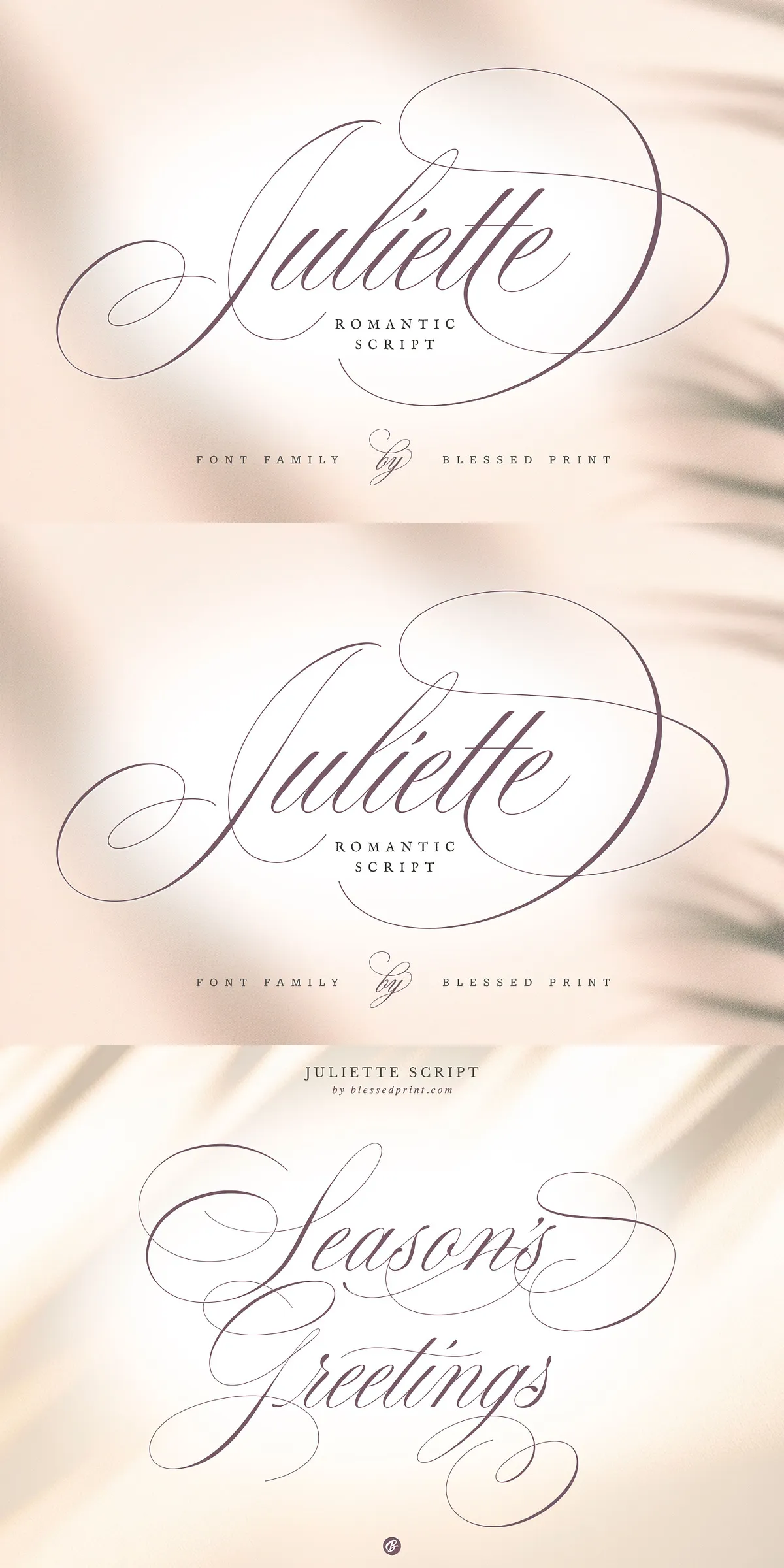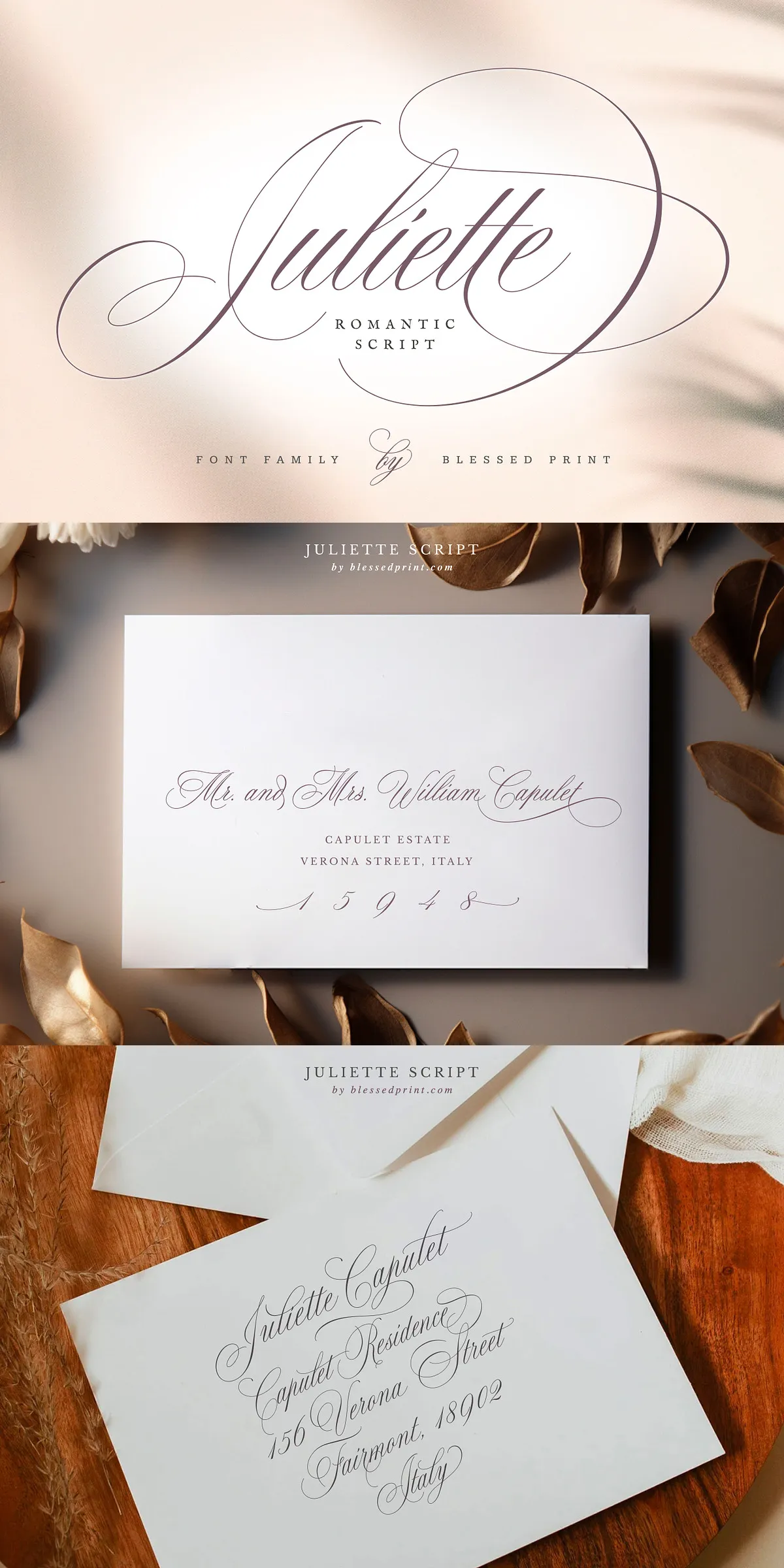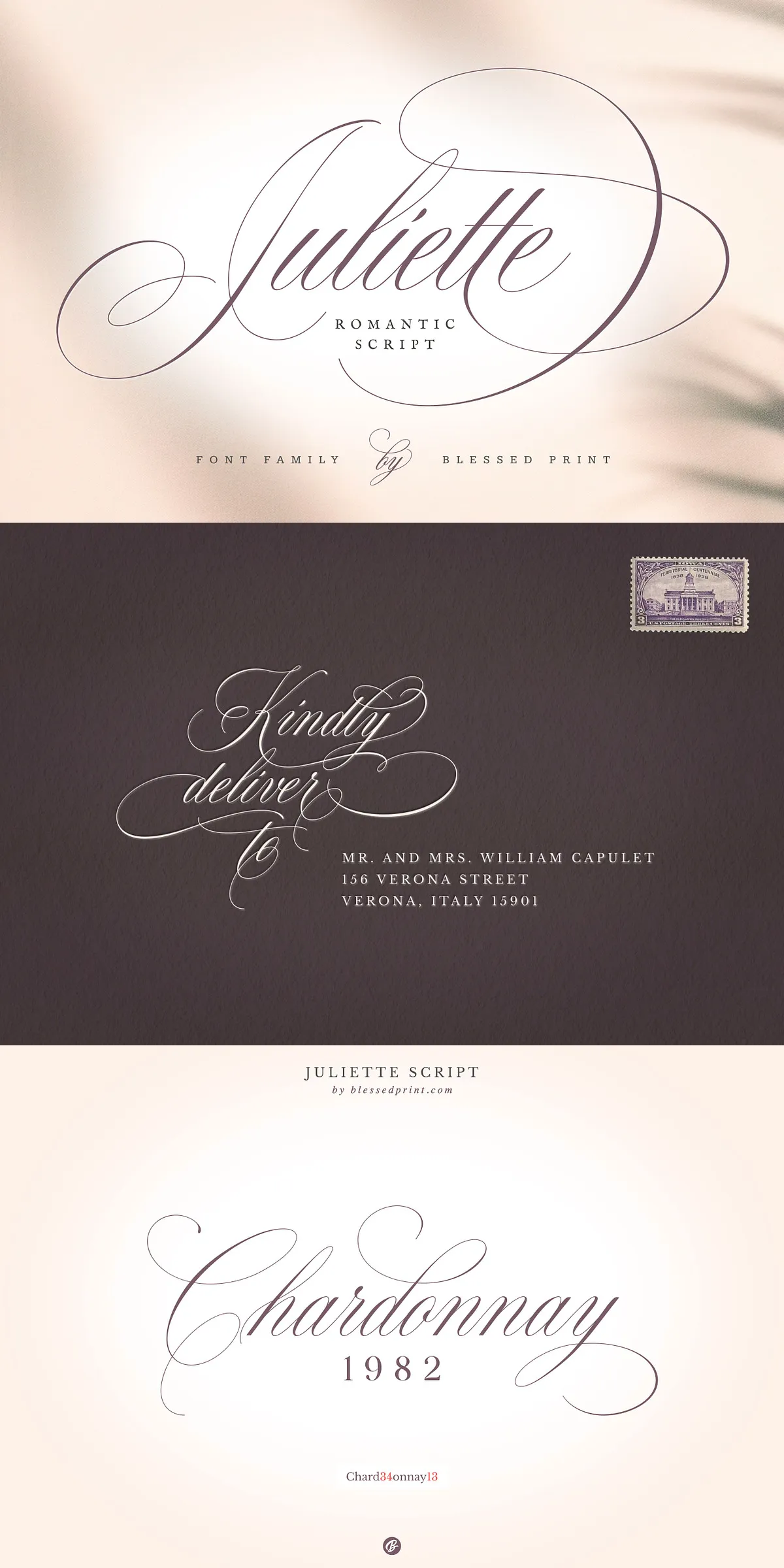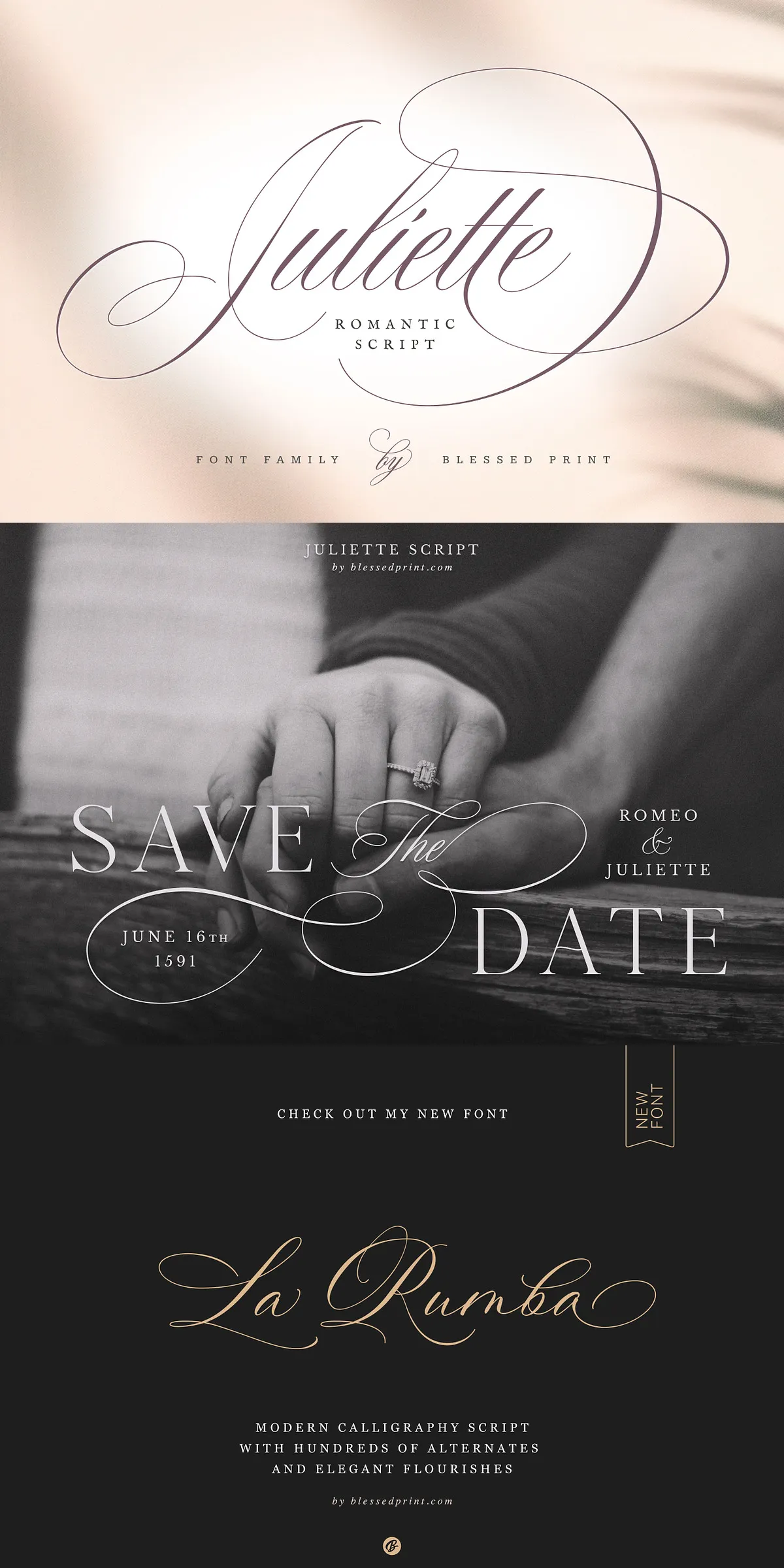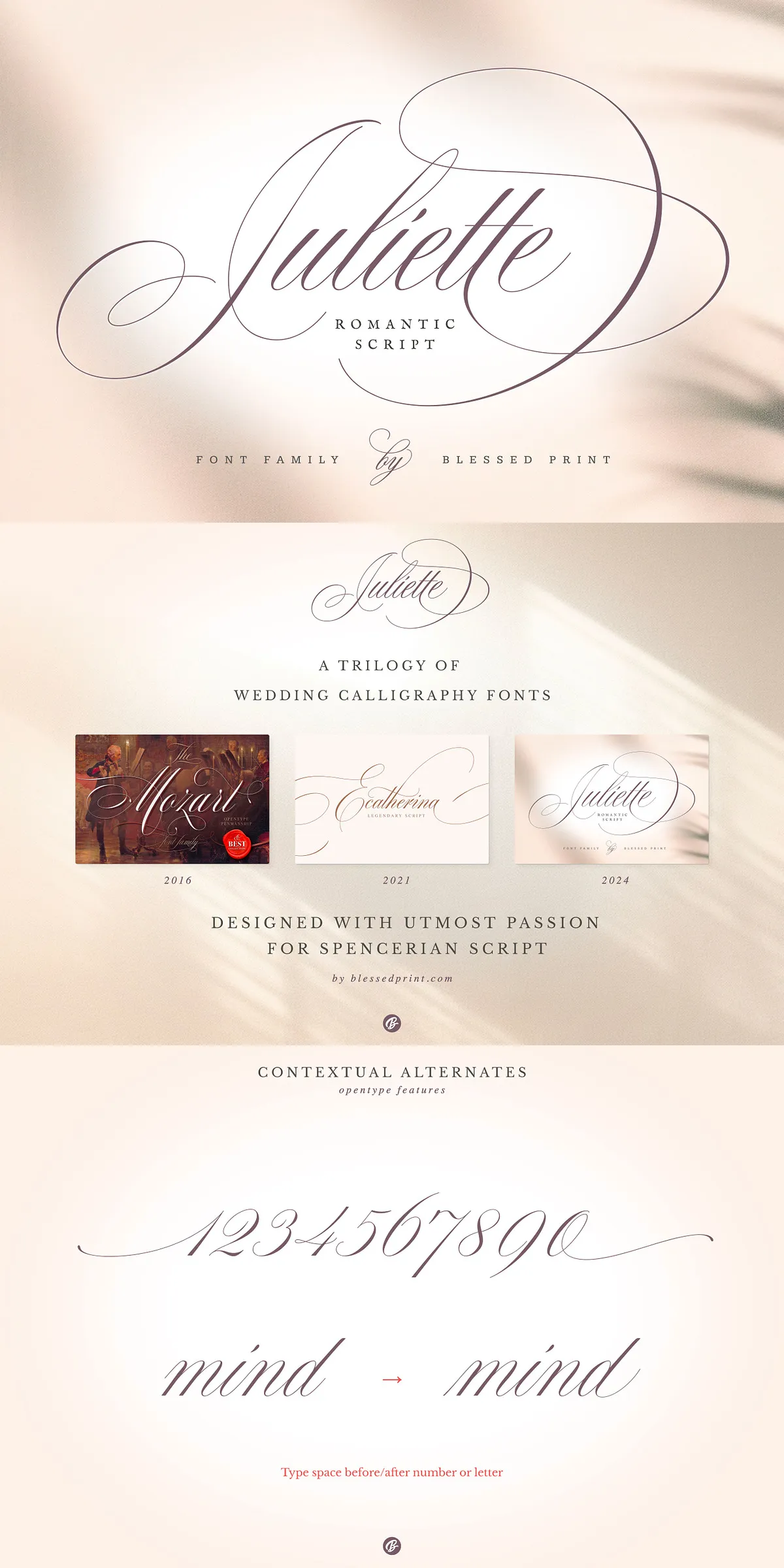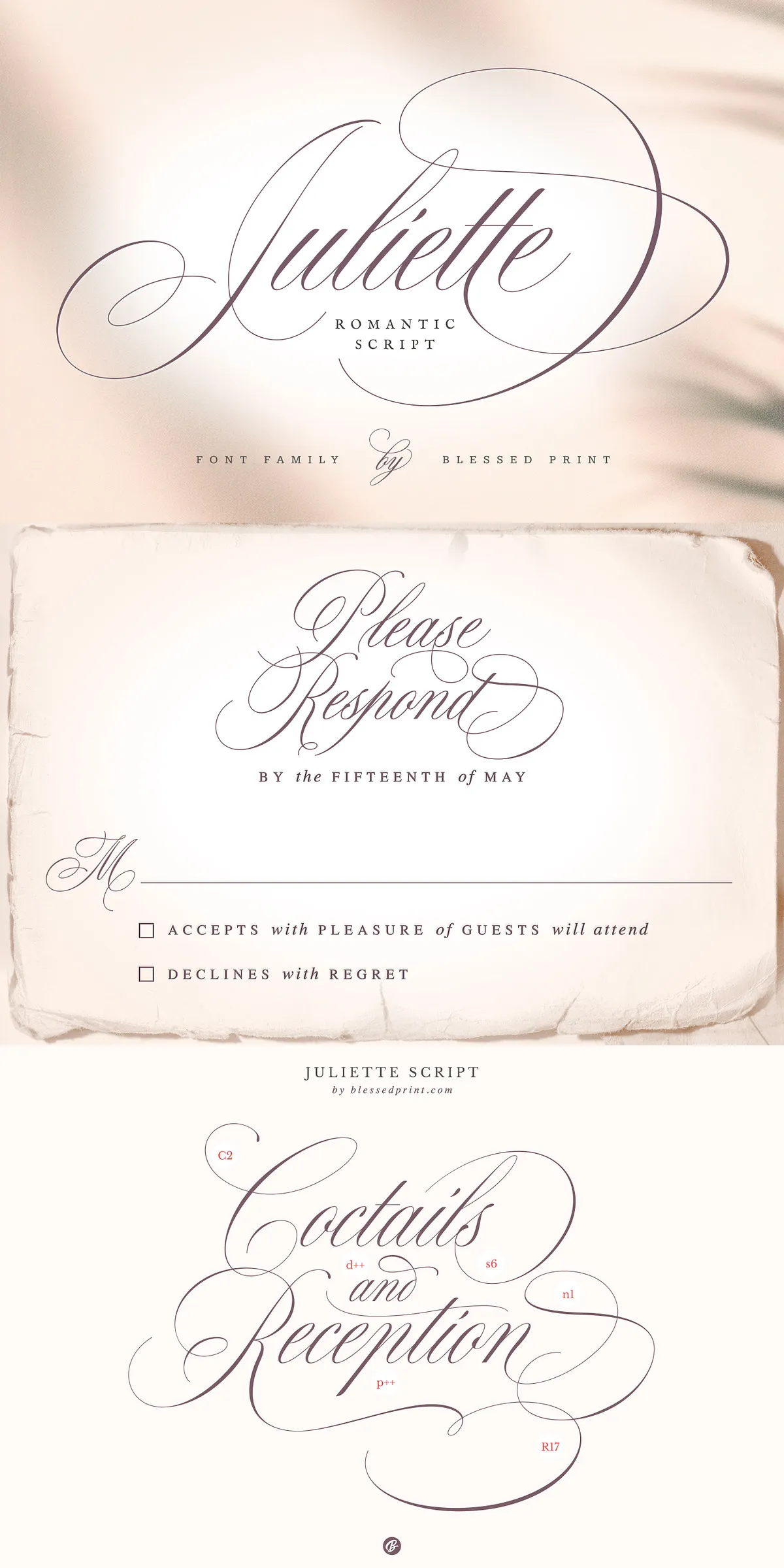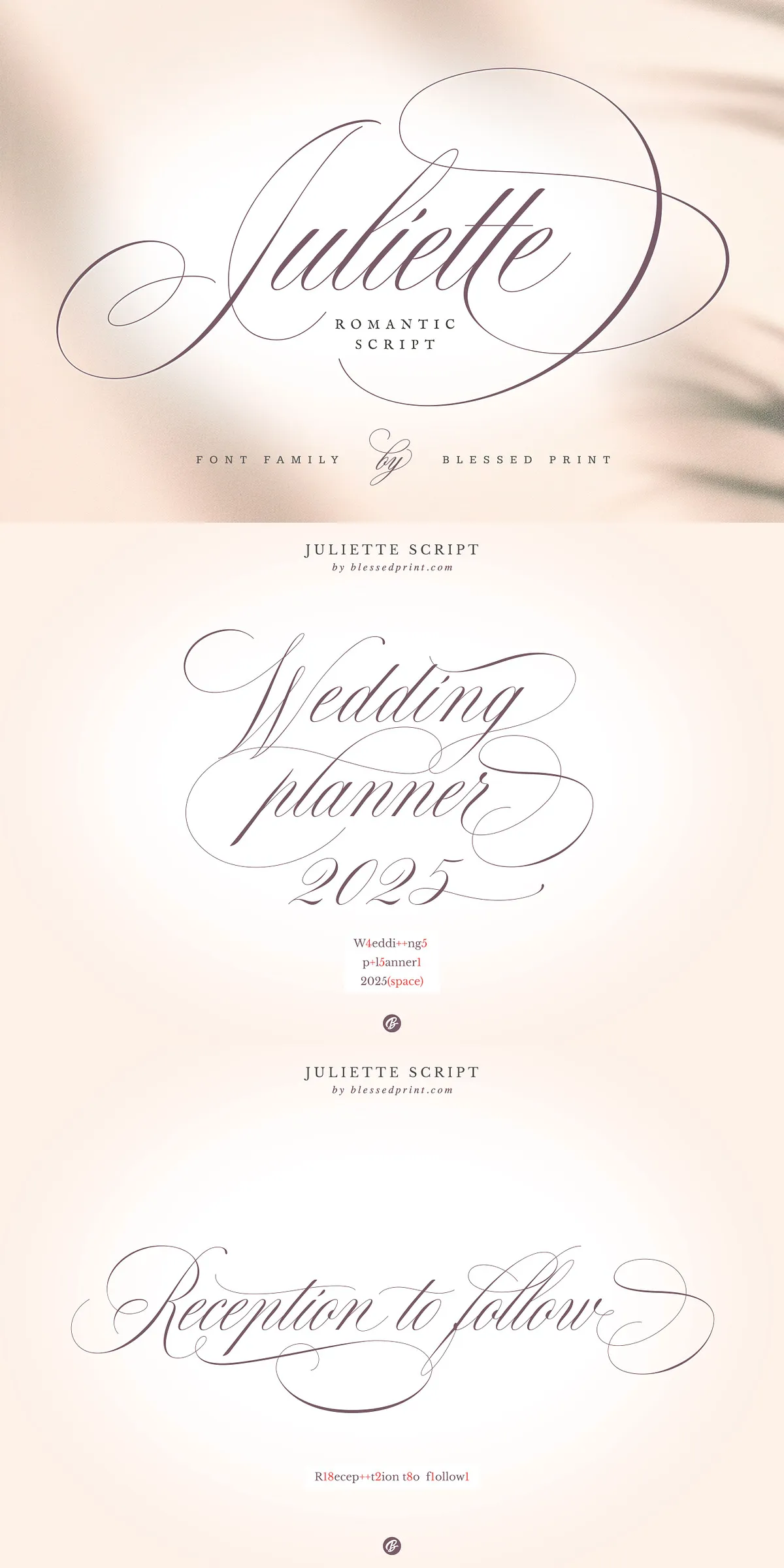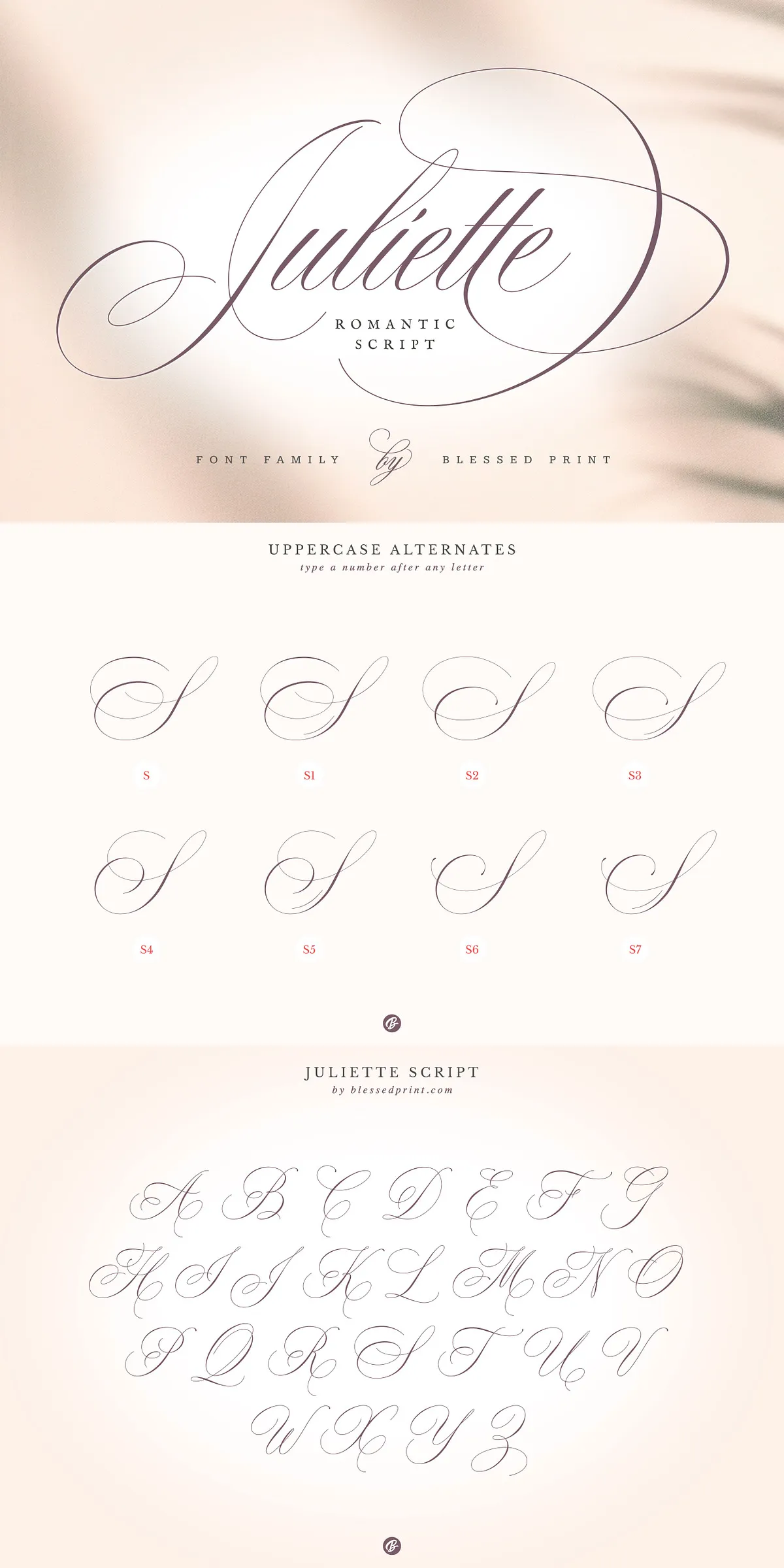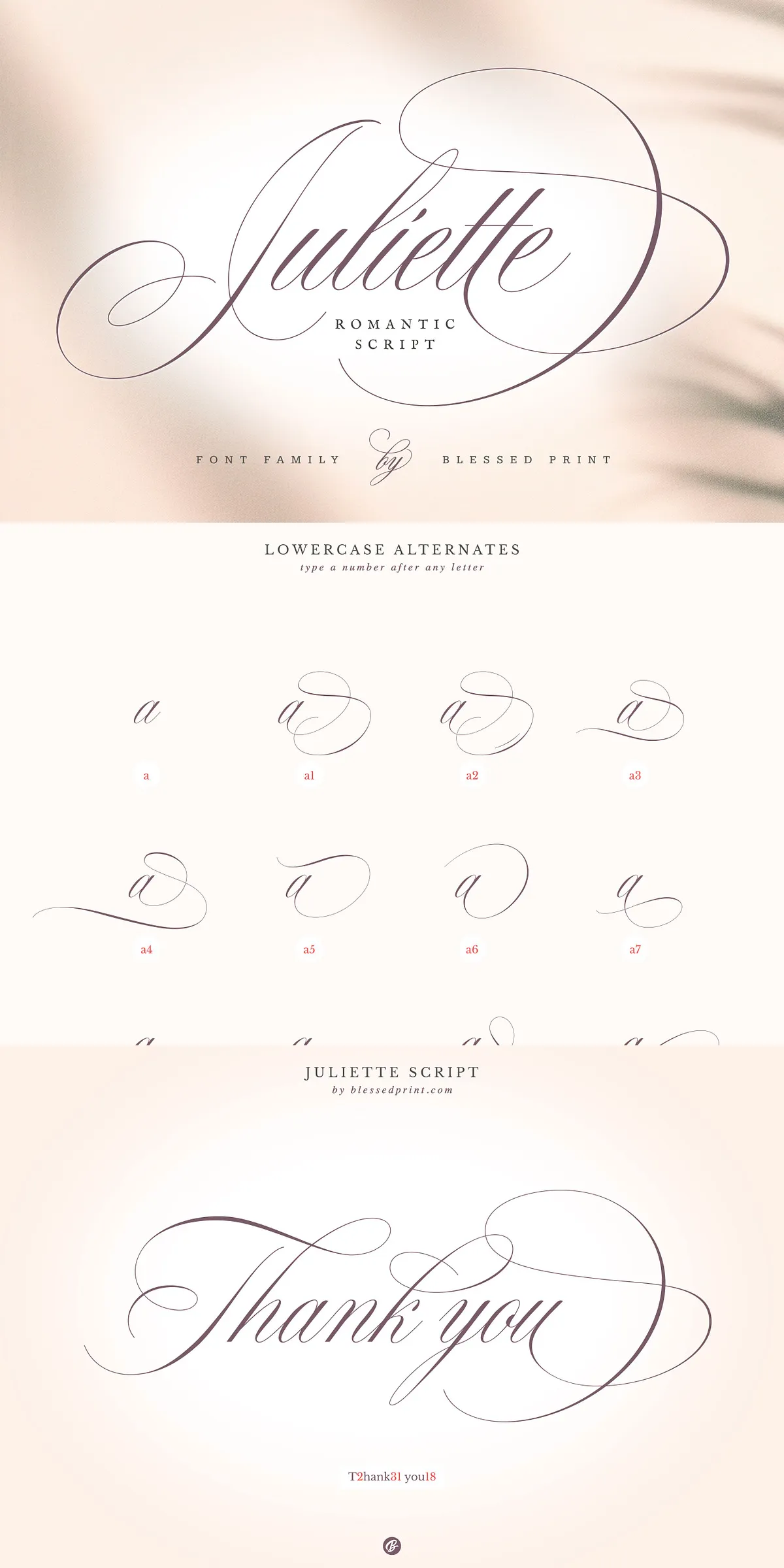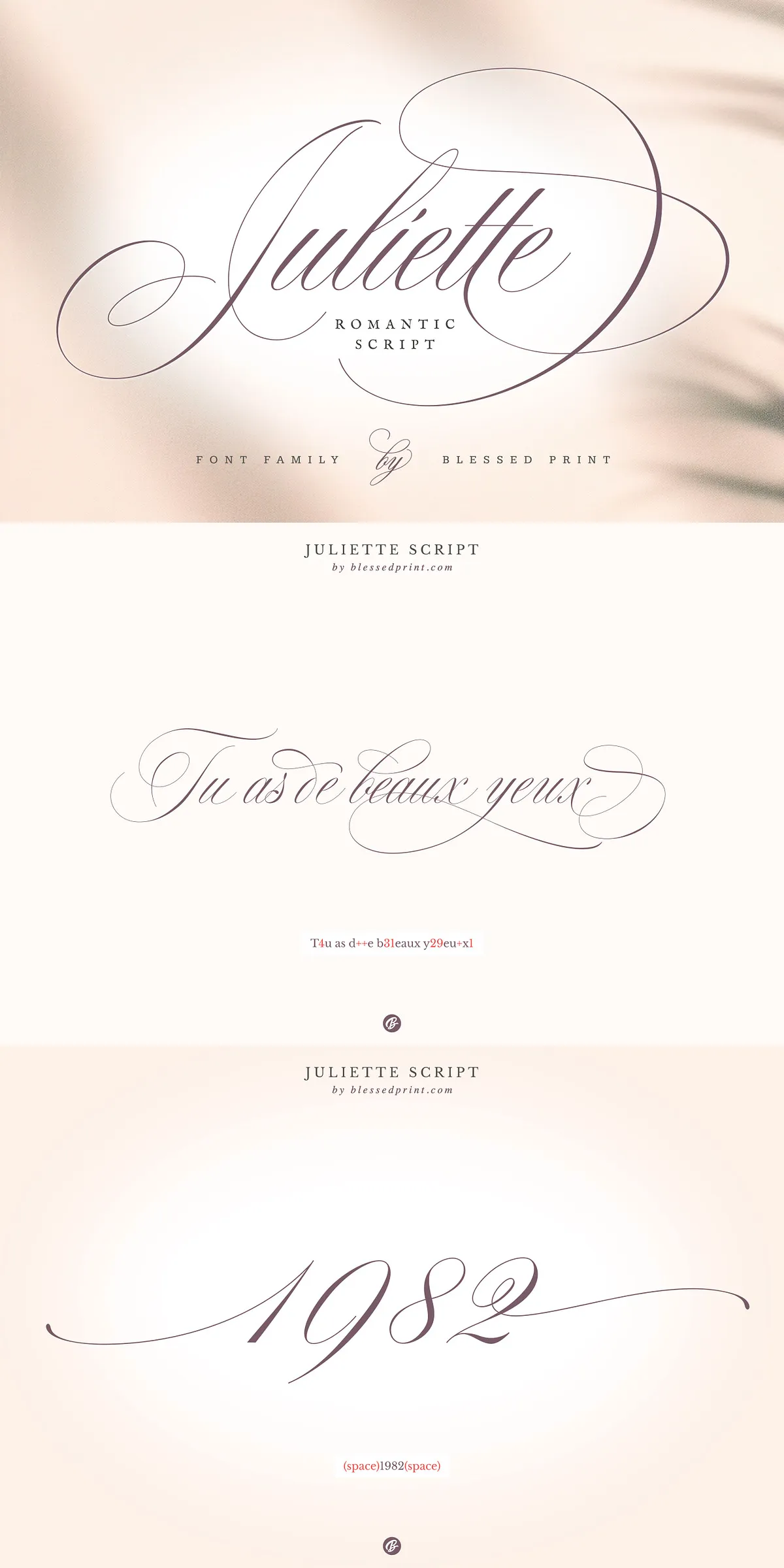
Juliette – Romantic Wedding Script
Juliette Script brings the timeless elegance and romance of Spencerian script and classic American handwriting into your design toolkit. Crafted with meticulous attention to detail, this font delights designers seeking to add a sophisticated, hand-lettered charm to wedding invitations, elegant signage, branding, and more. If you appreciated the refined strokes of popular scripts like Mozart and Ecatherina, Juliette Script will captivate you with its extensive variety of glyphs, ligatures, and swashes, providing rich creative freedom for any design project that demands a graceful and unique aesthetic.
An Abundant Collection of Glyphs, Swashes, and Alternates
Juliette Script boasts over 1600 carefully designed glyphs, offering a vast selection of stylistic alternates for both uppercase and lowercase letters. With this enormous variety, you can customize your typography effortlessly to suit your project’s tone and style. Users can unlock alternate glyphs by activating ligatures and typing numbers after letters (such as a1, a2, a3), granting access to multiple variations—some letters feature 40 or more unique forms. This level of customization allows you to craft personalized, flowing text compositions that feel handcrafted and elegant.
Comprehensive Font Variations for Versatile Design
The Juliette Script package contains nine font files in OTF and TTF formats, allowing compatibility across a broad range of design software. It offers three width variations—Regular, Medium, and Extended—to adapt to various layout needs without compromising legibility or style. In addition, three weight variations (Normal, Ex1, Ex2) provide designers with choices ranging from delicate to more pronounced letterforms, enabling diverse expression within a cohesive family.
Key Features and Technical Specifications
Juliette Script includes multiple advanced typographic features such as ligatures, contextual alternates, Roman numerals, and PUA (Private Use Area) encoding. The PUA encoding makes special glyphs and alternates accessible in software that supports it, expanding usability beyond traditional OpenType-aware design programs. This thoughtful technical build ensures Juliette Script remains practical and powerful for professional and personal use alike.
Wide Language Support for Global Creativity
Supporting a broad array of major European languages, Juliette Script includes diacritics and special characters for Czech, Danish, Dutch, English, French, German, Italian, Latvian, Lithuanian, Norwegian, Polish, Portuguese, Romanian, Slovak, Spanish, Swedish, Turkish, and more. This extensive multilingual support makes it an excellent choice for international projects requiring elegant script typography without compromising local language accuracy.
Ideal Uses for Juliette Script Font
Juliette Script shines in applications where style and sophistication are paramount. It is perfectly suited for wedding invitations, elegant signage, logo design, product packaging, branding materials, and even tattoos. Calligraphy enthusiasts will find this font’s authentic handwritten feel and rich alternates inspiring for creating stunning print materials and digital designs. Whether you want to convey romance, refinement, or a timeless handcrafted essence, Juliette Script delivers effortless beauty.